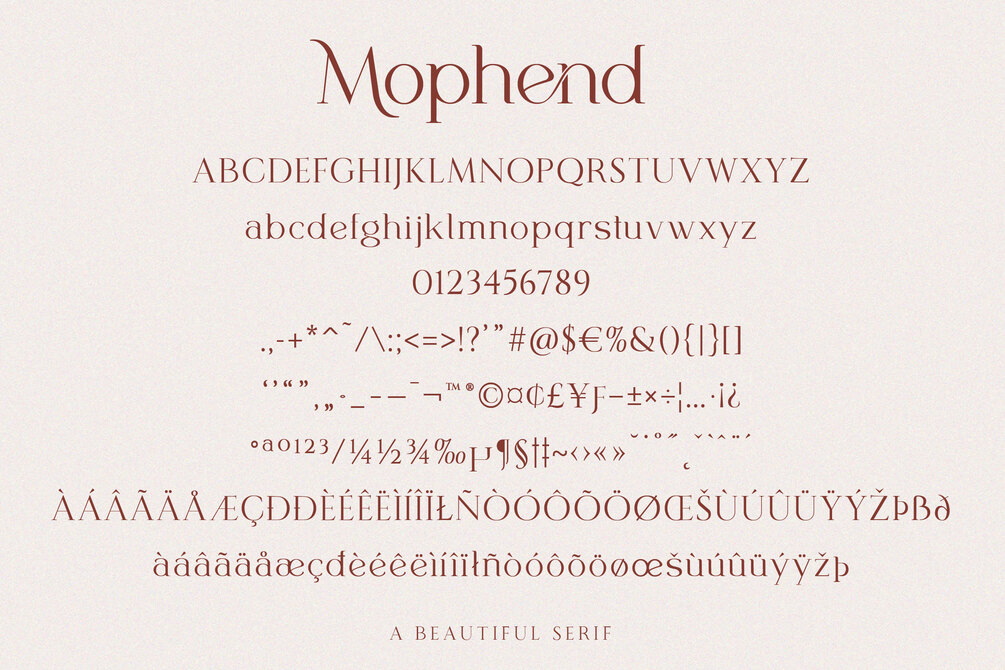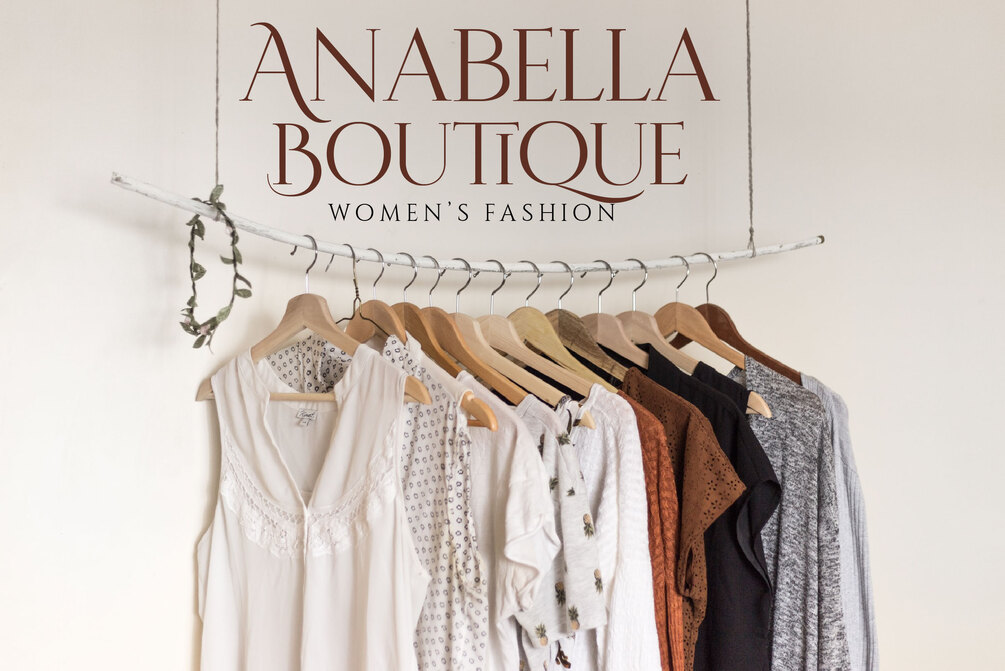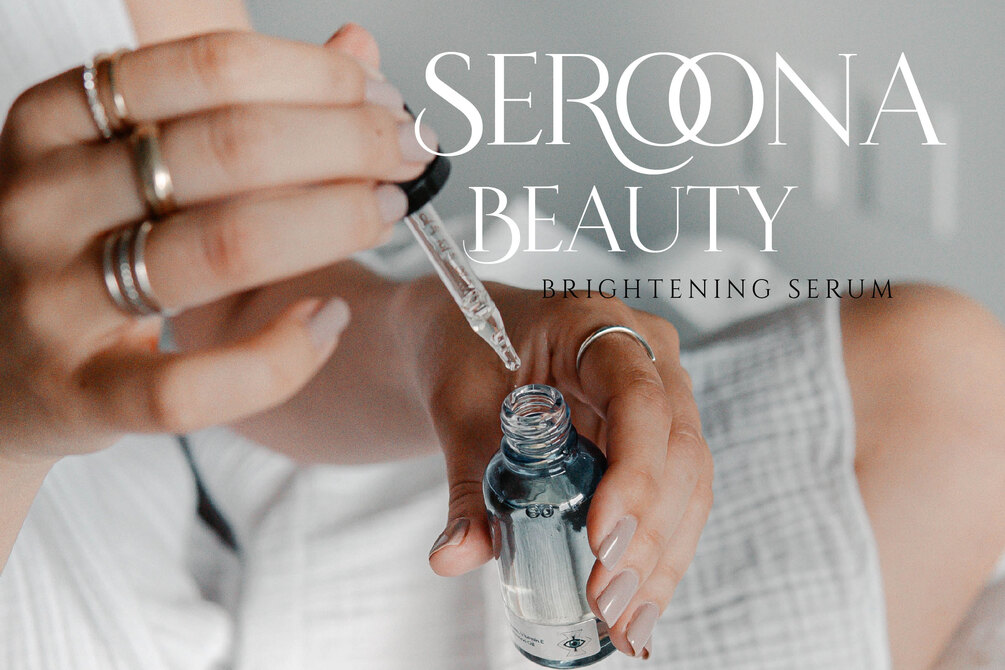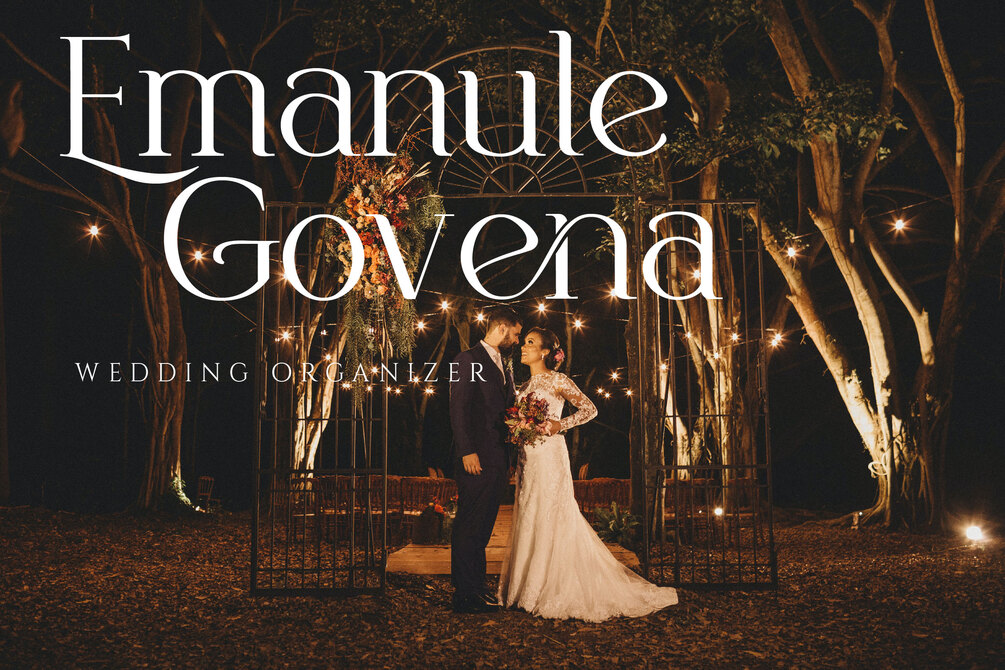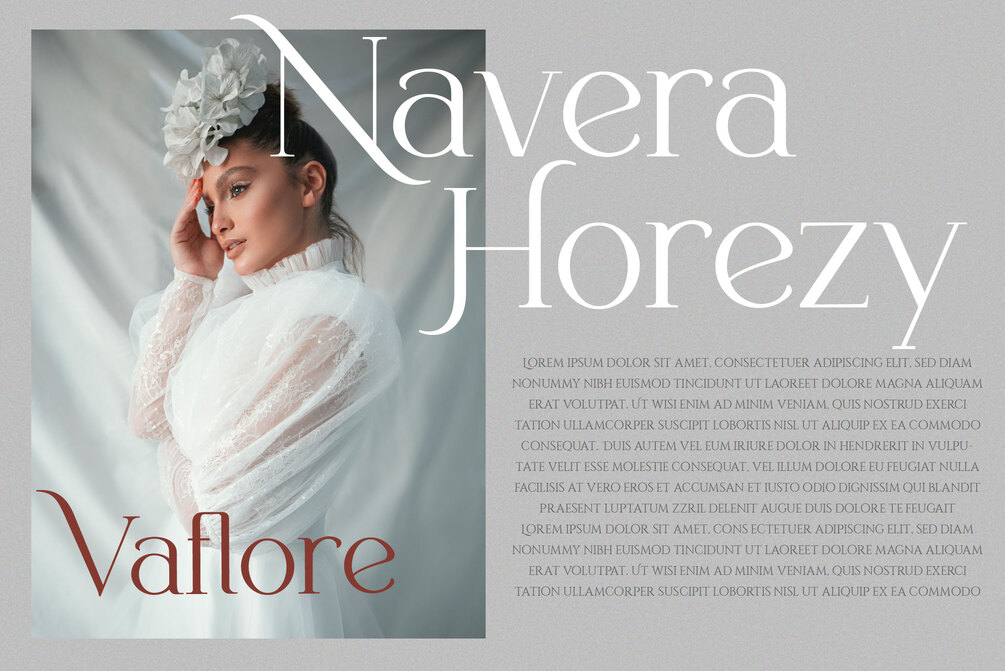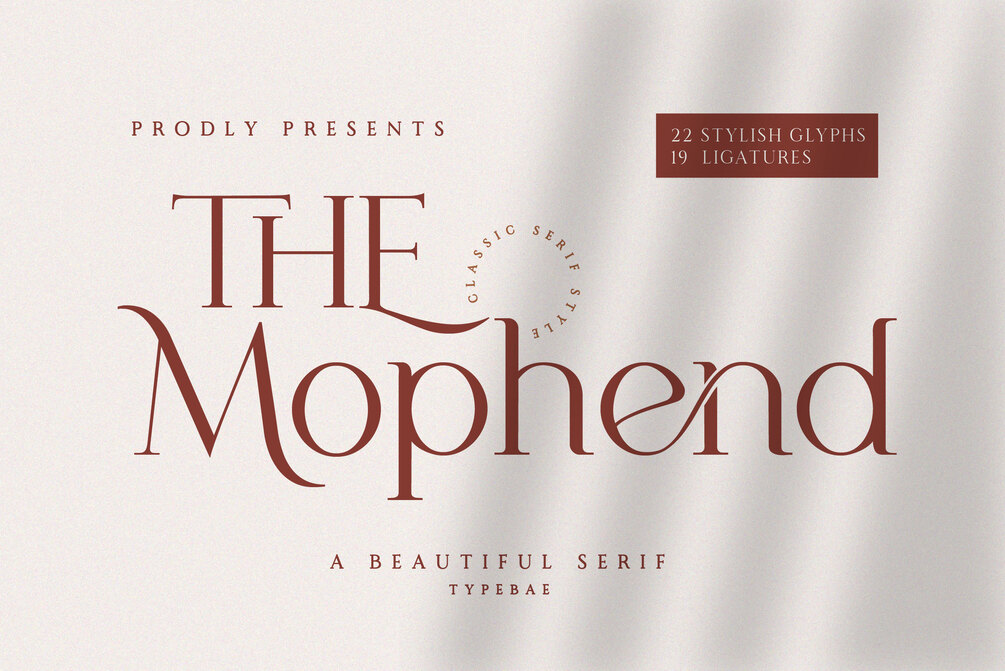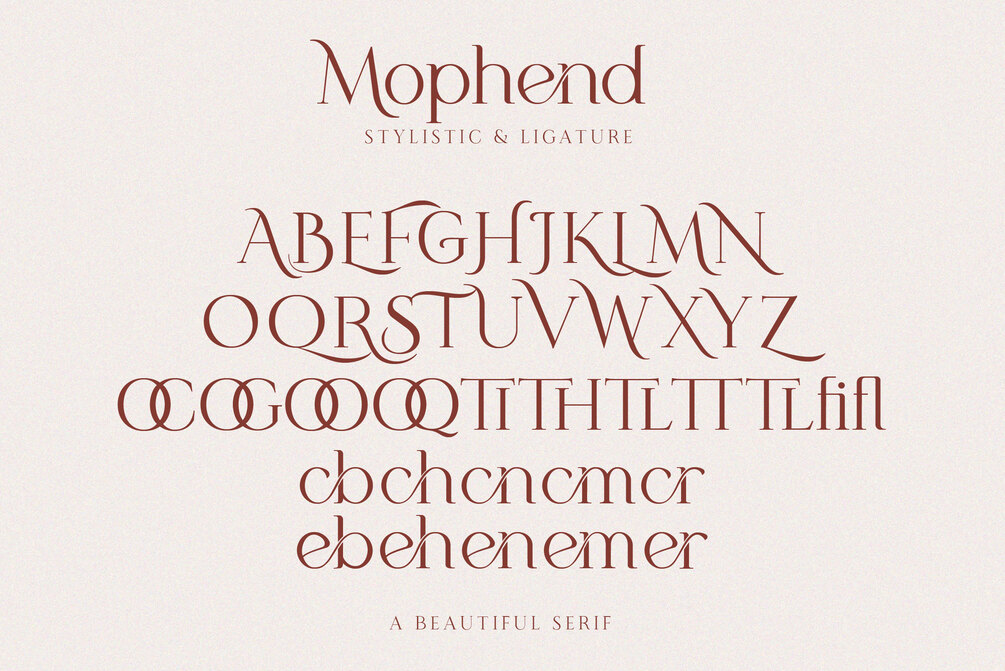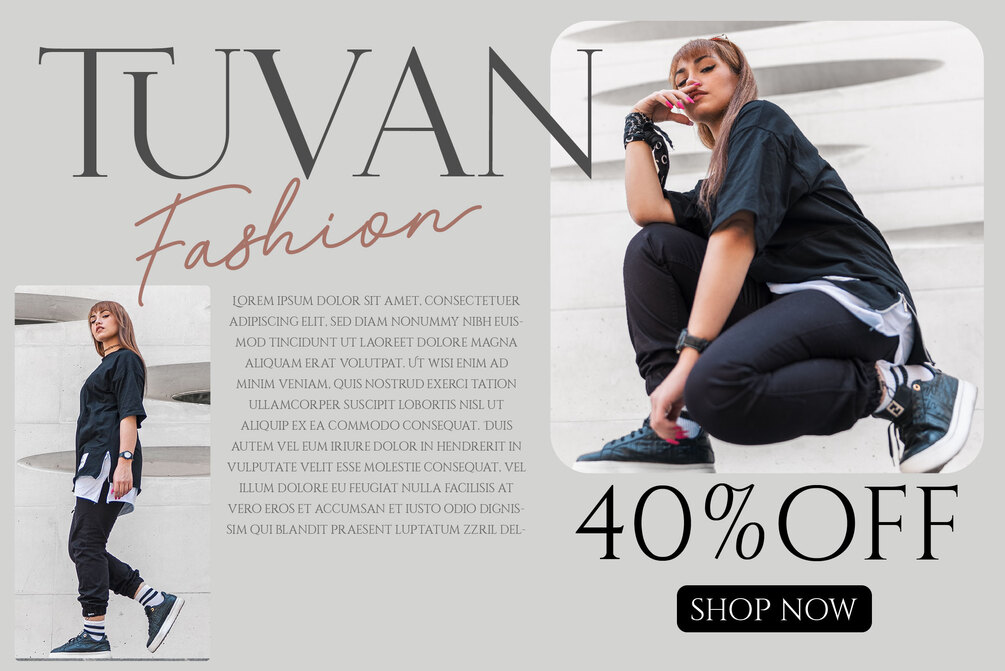
Mophend
Mophend is a beautiful and elegant serif font crafted with joy and luxury. For those of you who are needing a touch of stylish, classy, chic and modernity for your designs, this font was created for you!
• Multilingual
• Ligatures
• Alternates